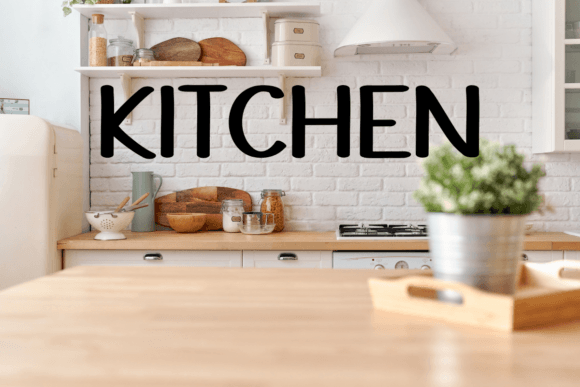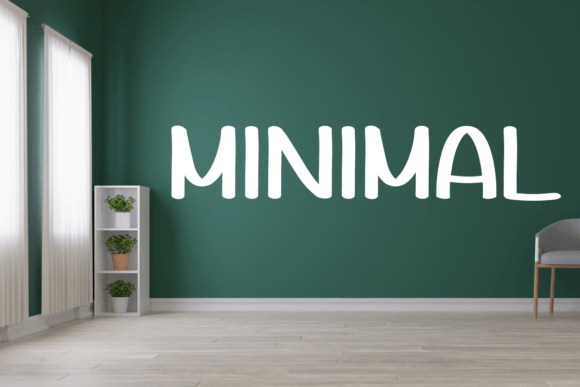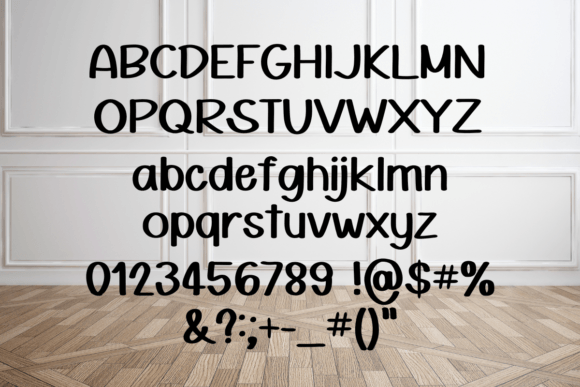
Discover Your New Favorite Font: Hello Font
Have you ever found yourself rummaging through your font library, searching for the perfect match to bring your creative vision to life? It’s that moment of excitement when you stumble upon the perfect font, and it all falls into place. For designers, finding that perfect font can be the difference between a good design and a great one.
Enter Hello Font, a beautiful and modern handwritten font that’s perfect for any occasion. Whether you’re creating crafts, designing digital content, or crafting the perfect greeting card, Hello Font has the potential to become your go-to font. Its minimal and elegant design makes it a valuable addition to any designer’s toolkit.
Hello Font Key Features
- Font Family: Hello Font is a sans-serif font family with multiple weights and styles.
- Character Set: Supports a wide range of languages, including Latin, Cyrillic, Greek, and more.
- Size: Available in 8 font weights, ranging from Thin (100) to Black (900), with corresponding italic styles.
- Resolution: Optimized for screen display at 72 dpi, with high-resolution versions available for print use.
- Unique Characteristics: Features a clean, modern design with a friendly and approachable feel, making it suitable for a wide range of applications, from corporate branding to digital products.
Hello Font Review
Hello Font is a beautiful, modern sans-serif typeface designed for digital use. I’ve had the chance to work with it in various projects, and here’s my honest review.
- Legibility: Hello Font is highly legible, making it perfect for body text and digital signage.
- Flexibility: It’s available in multiple weights and styles, allowing for a wide range of design applications.
- Scalability: Hello Font looks great on various screen sizes and resolutions, from small mobile devices to large desktop monitors.
- Customization: The font is fully customizable, allowing designers to adjust the line height, letter spacing, and more.
- Readability at small sizes: While Hello Font is generally legible, it can become difficult to read at very small font sizes.
- Lack of italics: Hello Font does not come with italic or oblique styles, which may limit its use in certain design applications.
Hello Font is a solid choice for digital design projects. While it has some limitations, its legibility, flexibility, and scalability make it a great option for a wide range of applications. I would recommend it for most digital design projects, but be mindful of its limitations when working at small font sizes or requiring italic or oblique styles.
Hello Font Practical Application Guide
Tips for Getting the Most Out of Hello Font
Use Hello Font for titles, headings, and emphasis in your designs. Experiment with different font sizes and colors to create visual hierarchy and draw attention to important elements. Consider pairing Hello Font with other fonts to create a unique and engaging visual identity.
Hello Font is ideal for:
- Creating modern and minimalist designs
- Adding a touch of elegance and sophistication
- Designing for the tech and gaming industries
- Creating visual identities for startups and entrepreneurs
Alternatives to Hello Font for Designers
Montserrat Font is a modern sans-serif font designed for urban environments. It is a great alternative to Hello Font for designers who want a clean and minimalist look. Use Montserrat Font for digital products, apps, and websites that require a sleek and sophisticated feel.
Compared to Hello Font, Montserrat Font has a more geometric and technical feel, making it ideal for tech-related projects. It also has a larger character set and is more versatile in its applications.
Lato Font is a clean and elegant sans-serif font that is highly legible and readable. It is a great alternative to Hello Font for designers who want a font that is both modern and classic. Use Lato Font for corporate websites, magazines, and other publications that require a sophisticated and professional look.